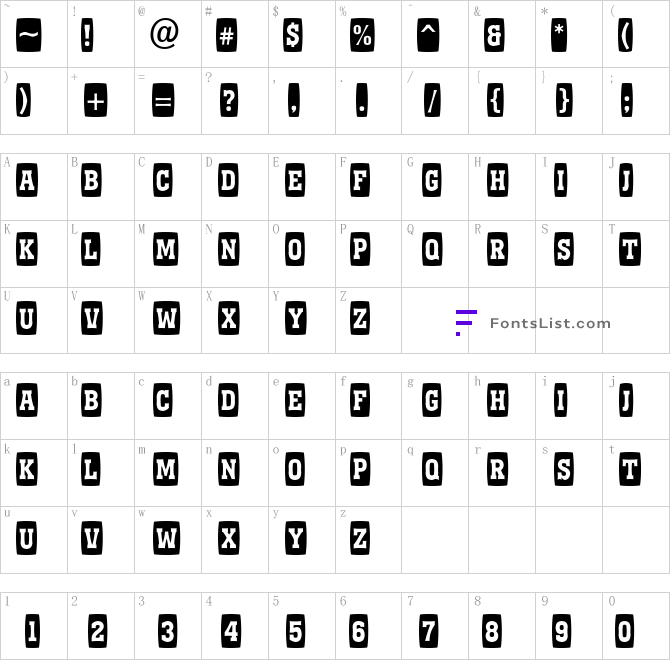
- Font Name:a_KenaCmDc
- Subfamily:ArsenalCompany: a_KenaCameoDecor: 1999
- Full Name:a_KenaCmDc Medium
a_KenaCmDc-Medium.ttf is a very beautiful artistic font, a_KenaCmDc-Medium.ttf is widely used in the design and printing of various books and pictures,a_KenaCmDc-Medium.ttf has a strong visual impact,a_KenaCmDc-Medium.ttf is a commonly used font in newspapers, magazines and books, and is used in posters, e-commerce Poster design, store design, logo design, font design and other fields.a_KenaCmDc-Medium.